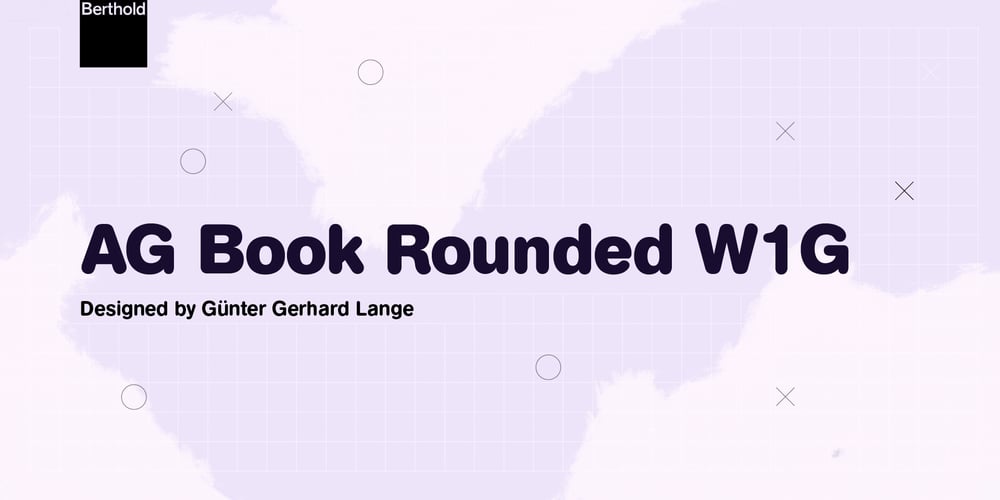
AG Book Rounded W1G Font Family was designed by Günter Gerhard Lange and published by Berthold. AG Book Rounded W1G contains 12 styles and family package options. A more casual extension of the AG Book family, Günter Gerhard Lange designed AG Book Rounded in 1980. It has an informality that is appropriate for all kinds of advertising and display work. AG Book Rounded has been a popular choice for signage in Europe and often is used in children’s works. Cyrillic and Greek were added in 2008.